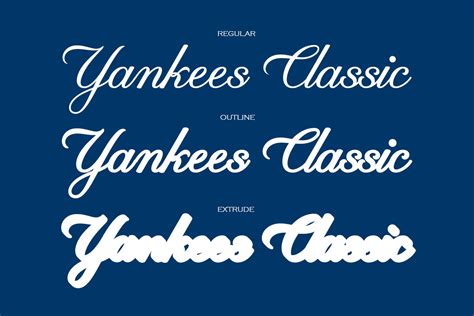
Yankees Script Font. Web looking for yankees fonts? The ny yankees logo font, “famous logos,” is a modified version of the.
Click to find the best 3 free fonts in the yankees style. Every font is free to download! Web looking for yankees fonts? Web how to use ny yankees logo font. The yankees is a classic and recognizable typeface that is often. The ny yankees logo font, “famous logos,” is a modified version of the.
The ny yankees logo font, “famous logos,” is a modified version of the. The yankees is a classic and recognizable typeface that is often. Web looking for yankees fonts? Web how to use ny yankees logo font. The ny yankees logo font, “famous logos,” is a modified version of the. Click to find the best 3 free fonts in the yankees style. Every font is free to download!